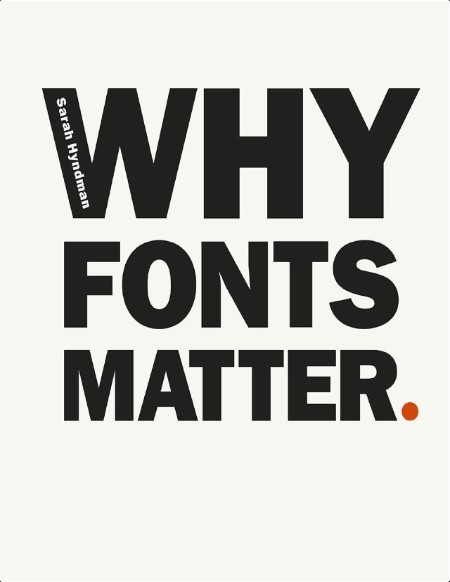
Title: Why Fonts Matter
Author: Sarah Hyndman
Year: 2016
Description:
We all constantly interact with type in almost every aspect of our lives. But how do fonts affect what we read and influence the choices we make?
This book opens up the science and the art behind how fonts influence you. It explains why certain fonts or styles evoke particular experiences and associations. Fonts have different personalities that can create trust, mistrust, give you confidence, make things seem easier to do or make a product taste better. They're hidden in plain sight, they trigger memories, associations and multisensory experiences in your imagination.
* Fonts can alter the meanings of words right before your very eyes.
* See what personalities fonts have, and what they reveal about YOUR personality.
* Explore how you respond to fonts emotionally and can make fonts work for your message.
* Be amazed that a font has the power to alter the taste of your food.This book is for anyone who is interested in giving words impact, who loves words and how they influence us.